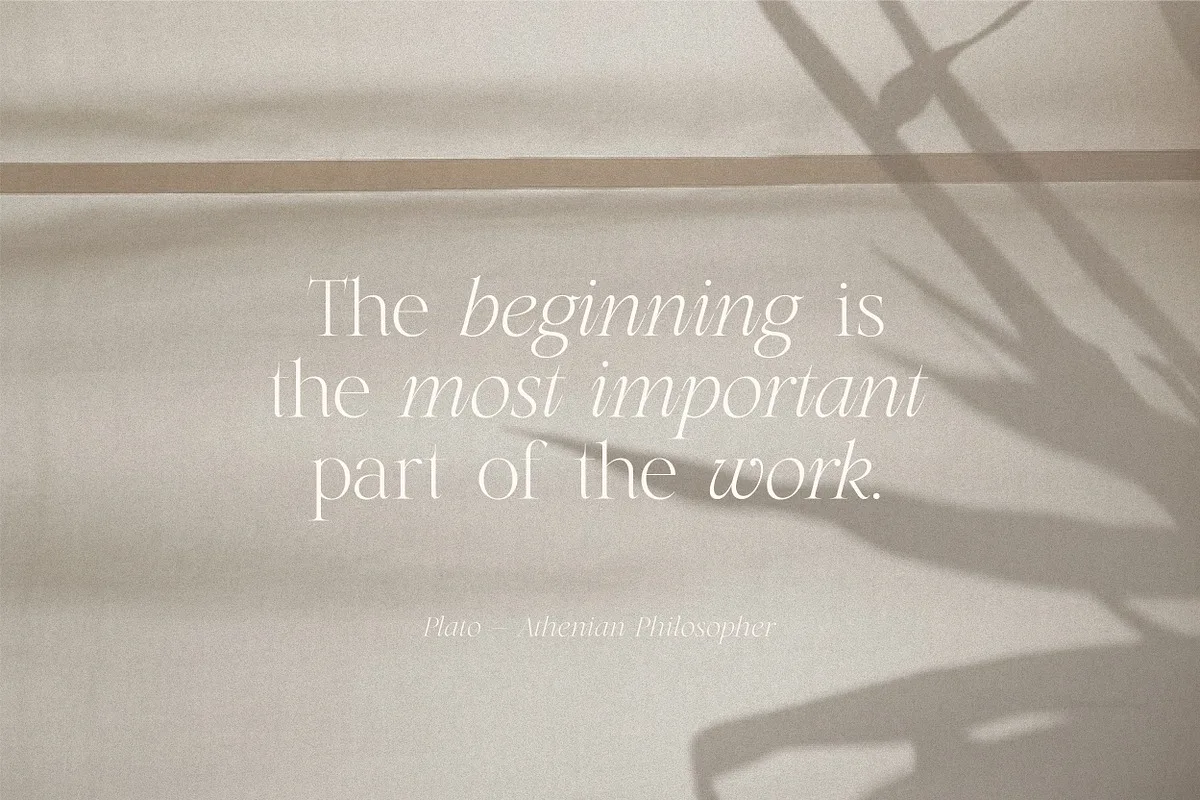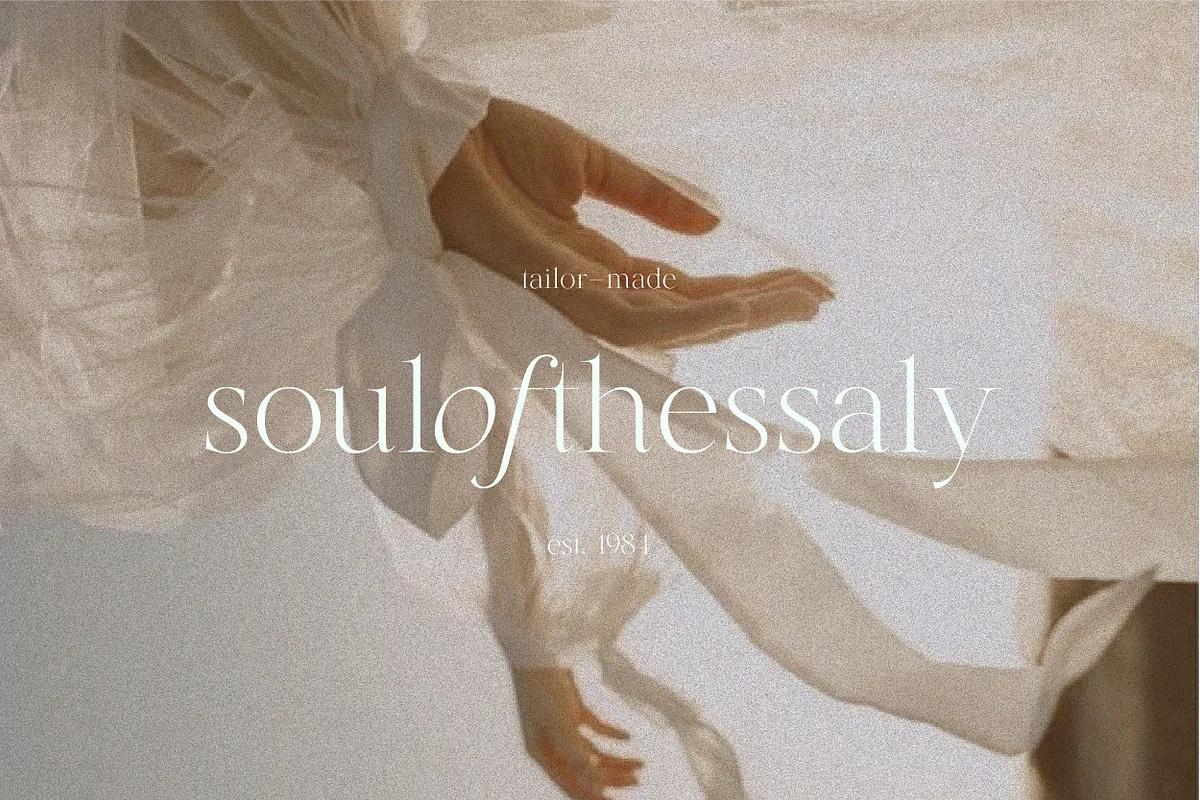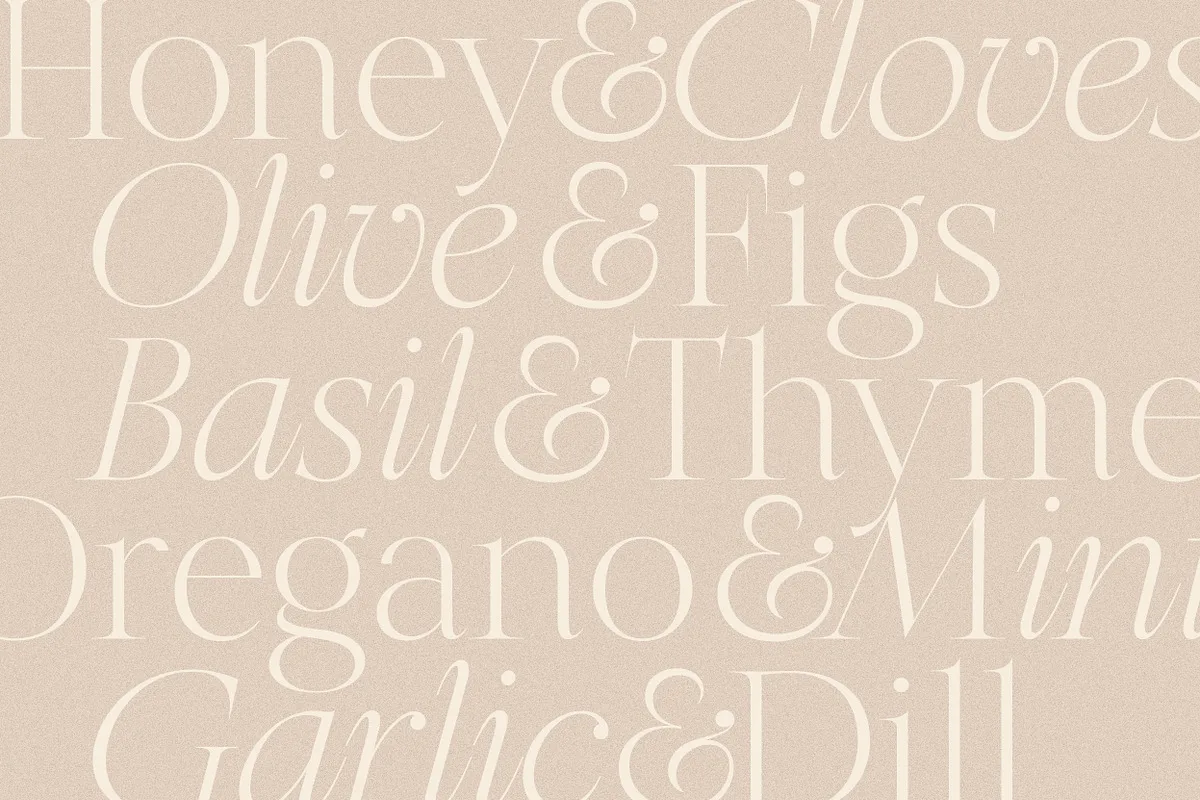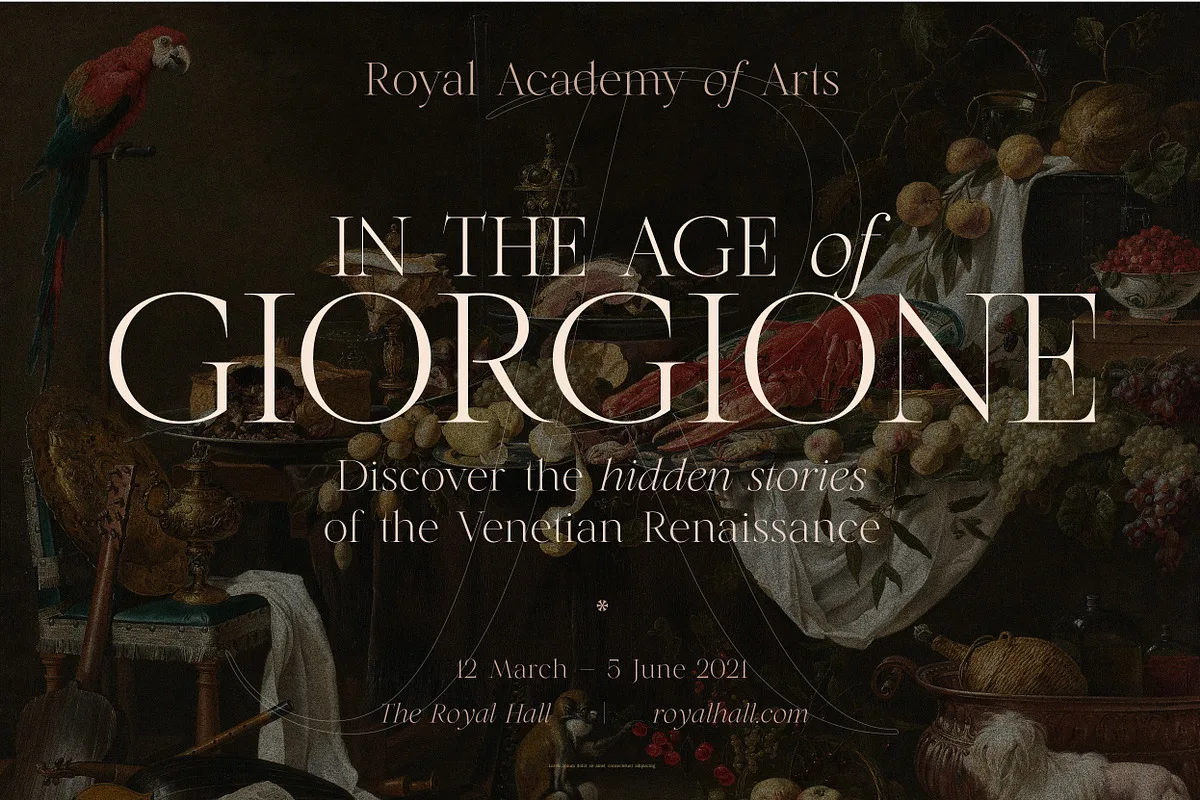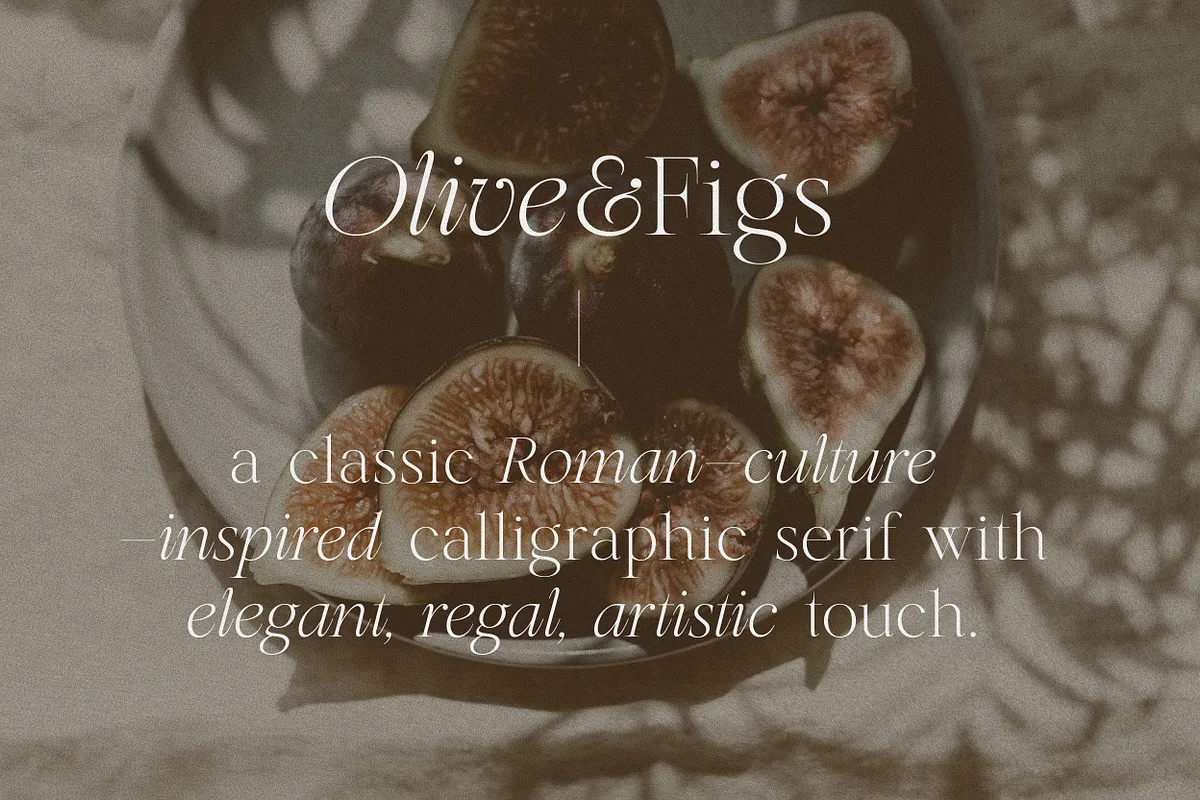
Olive and Figs is a classic Roman-culture-inspired calligraphic serif with an elegant, regal, artistic touch. Specially designed for regal, classy projects, perfectly suitable for creating elegant, simple, lifestyle designs such as logos, titles, packaging and more.